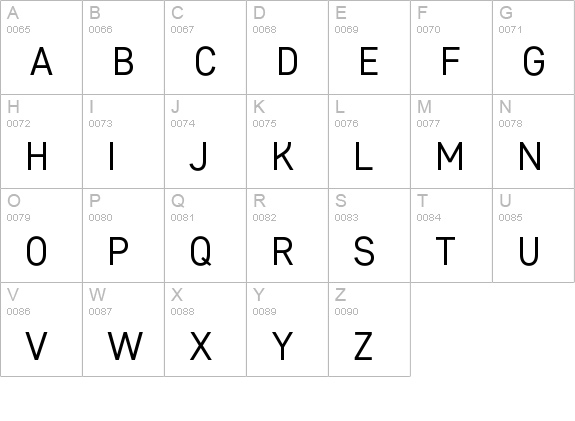
Core Sans D 35 Regular is the standard, neutral variant in the Core typeface family \xE2\x80\x94 well suited to general body text, paragraphs, and standard typographic work.
Core Sans D 35 Regular is a modern and versatile typeface that strikes the perfect balance between professionalism and creativity. With its clean lines and subtly rounded corners, this font exudes a sense of sophistication while remaining approachable. Its balanced x-height and consistent stroke widths make it highly legible in both print and digital mediums. This versatile font is perfect for a wide range of design projects, from branding and advertising to web design and editorial layouts. Whether you're looking to create sleek headlines or easy-to-read body text, Core Sans D 35 Regular has you covered. The best part? Core Sans D 35 Regular is available for free download at FontsMarket.com. Now you can elevate your designs with this elegant and modern typeface without breaking the bank. Don't miss out on this opportunity to add a touch of sophistication to your projects with Core Sans D 35 Regular. Download it today and start creating stunning designs with ease.